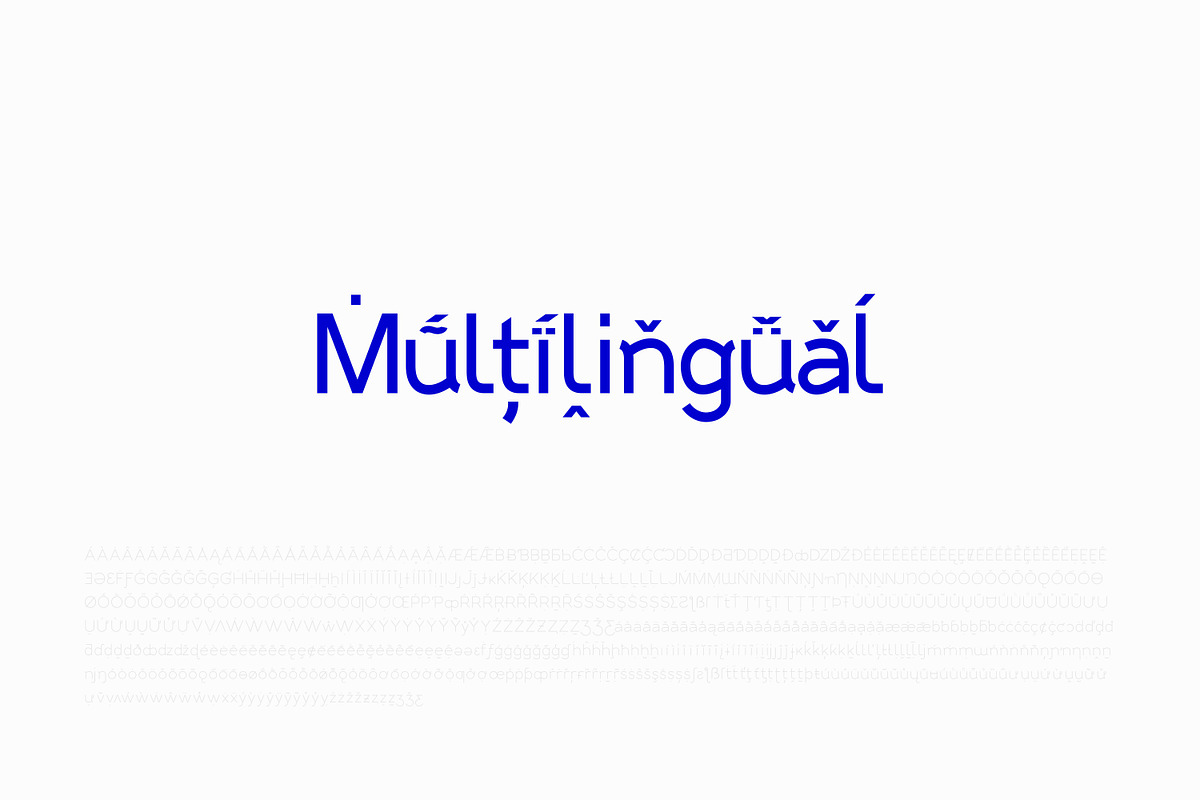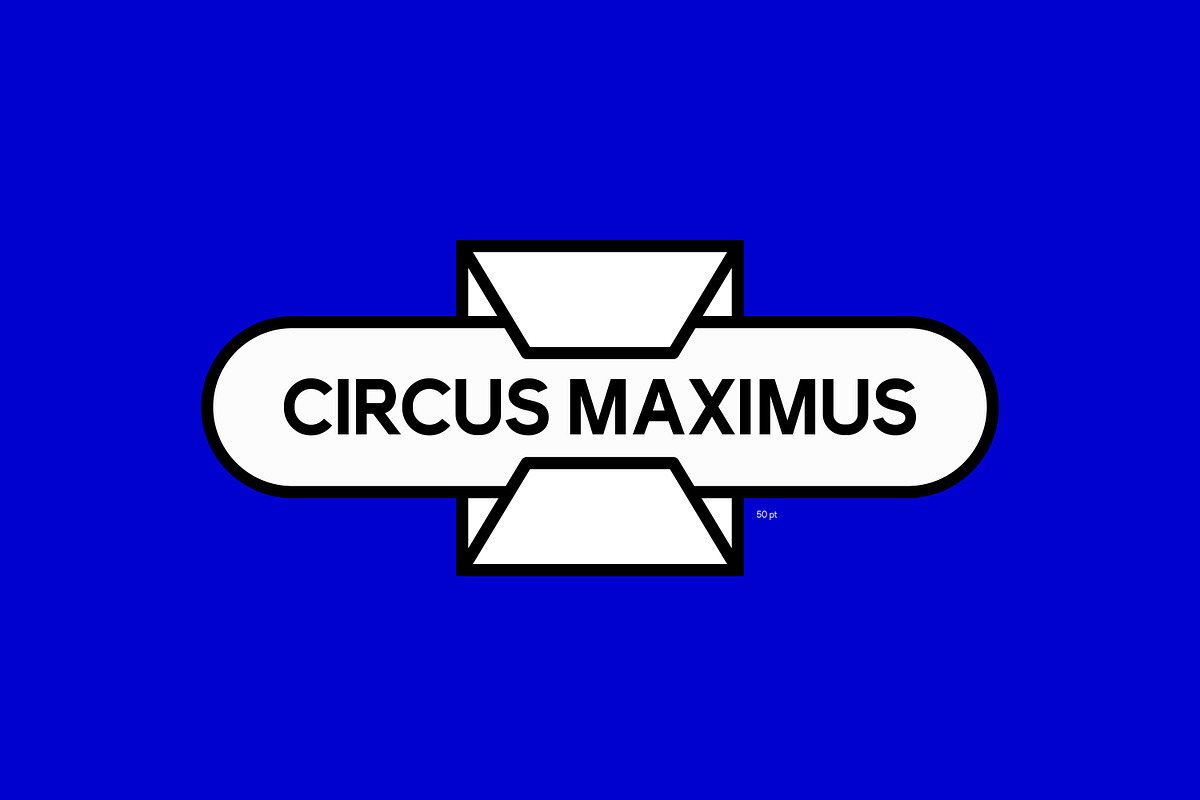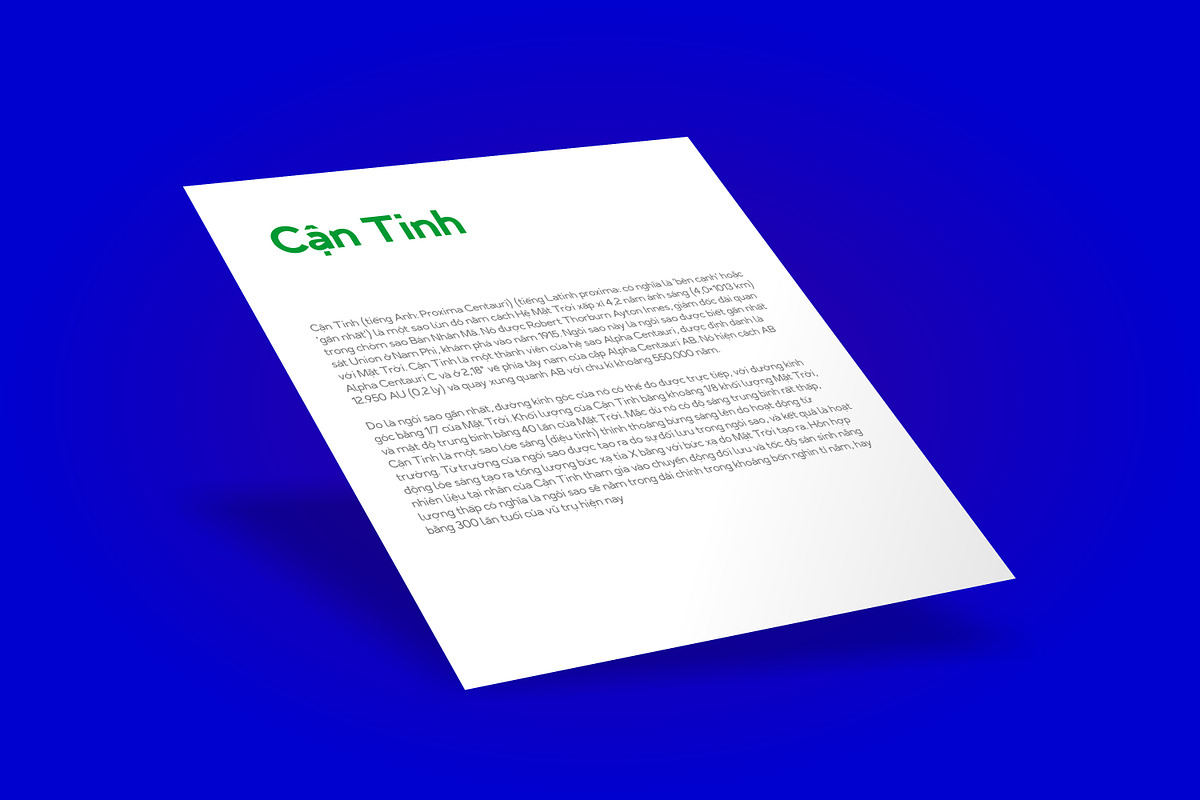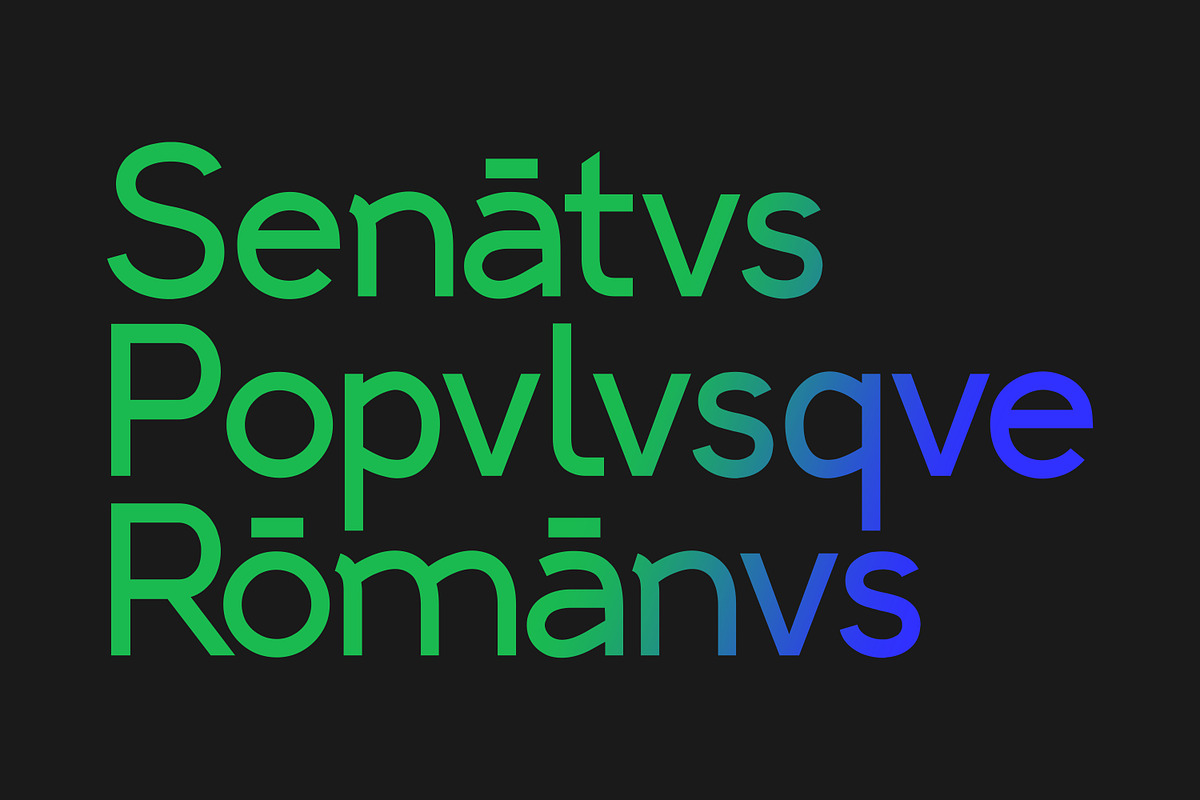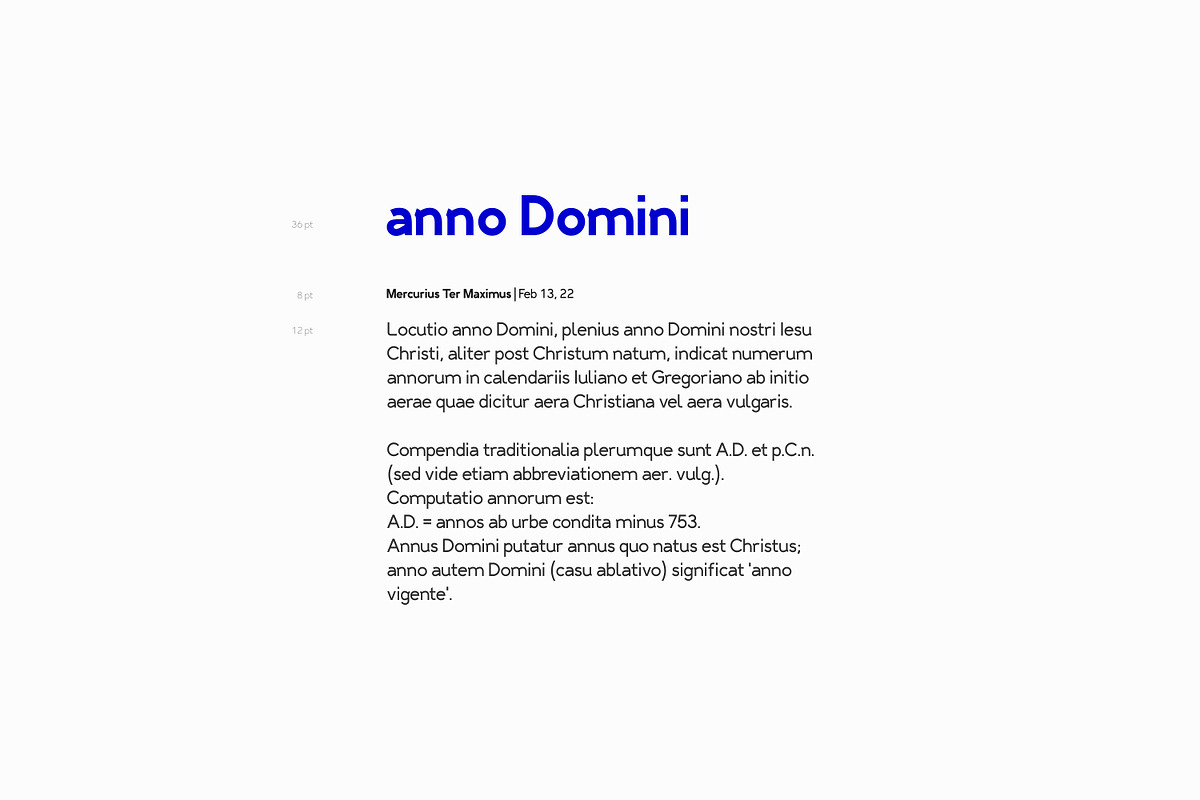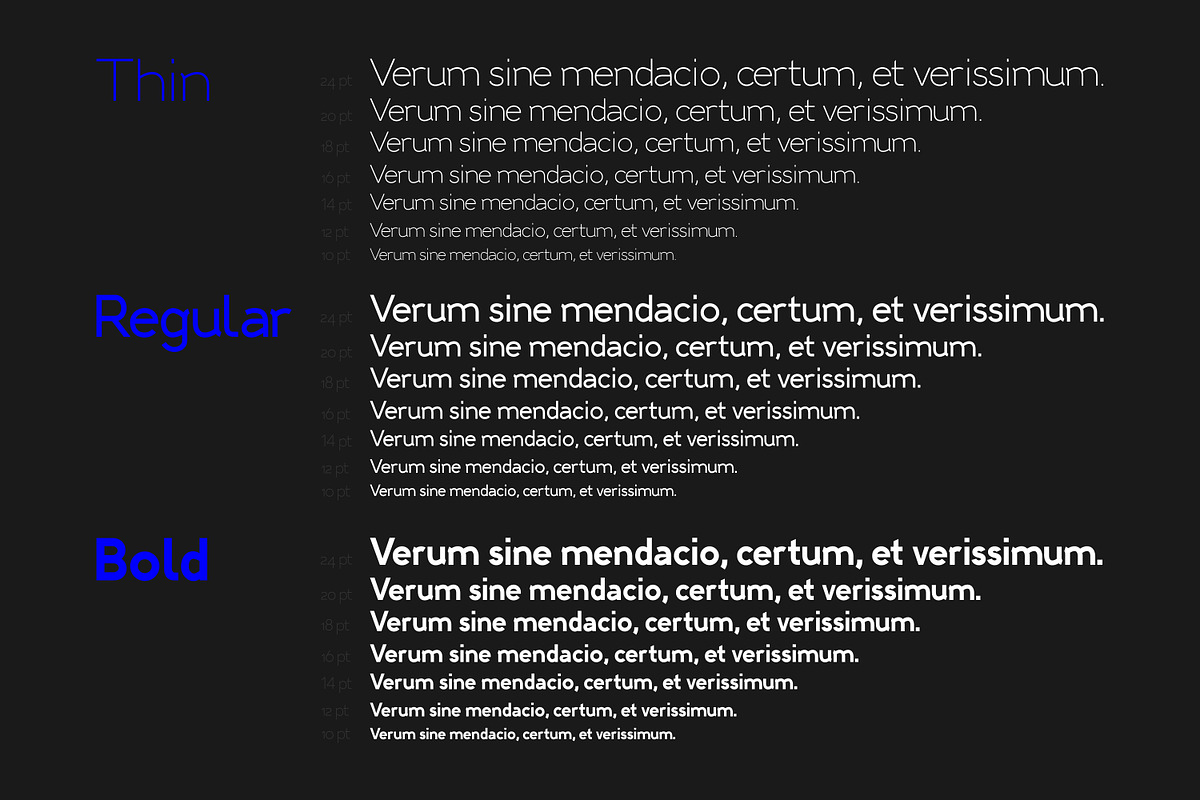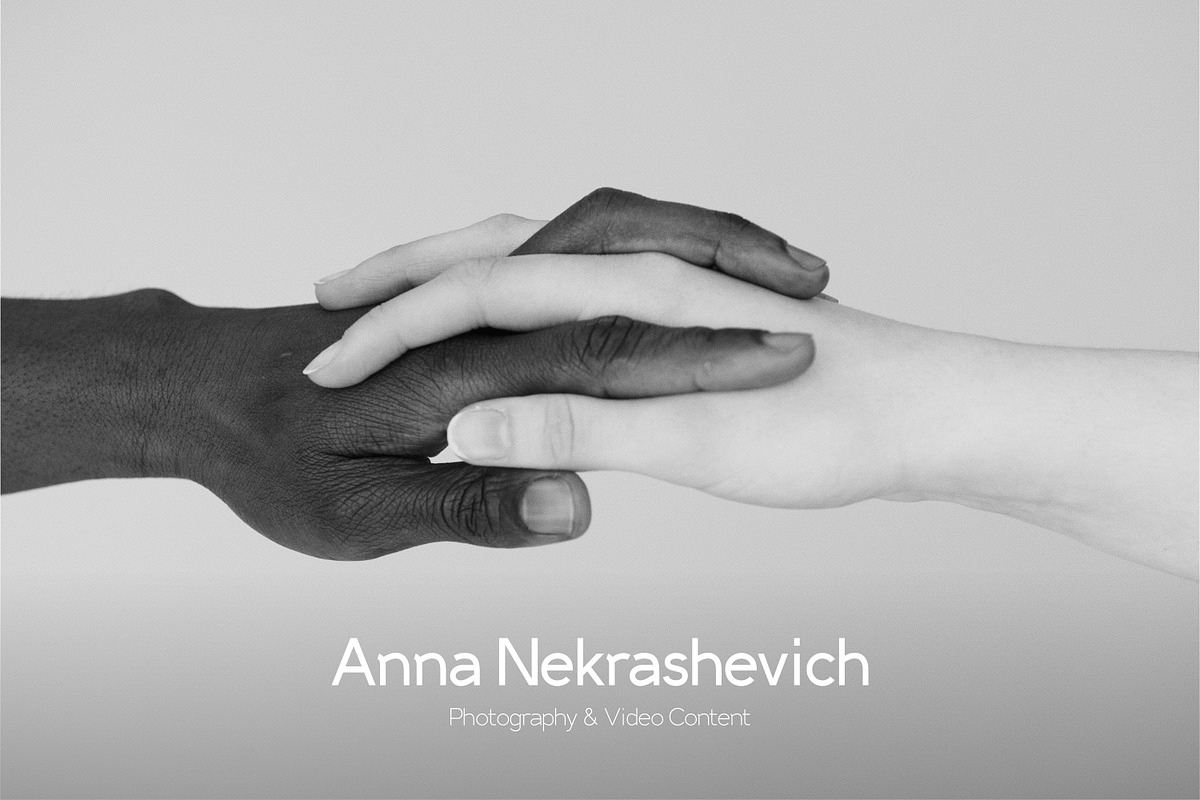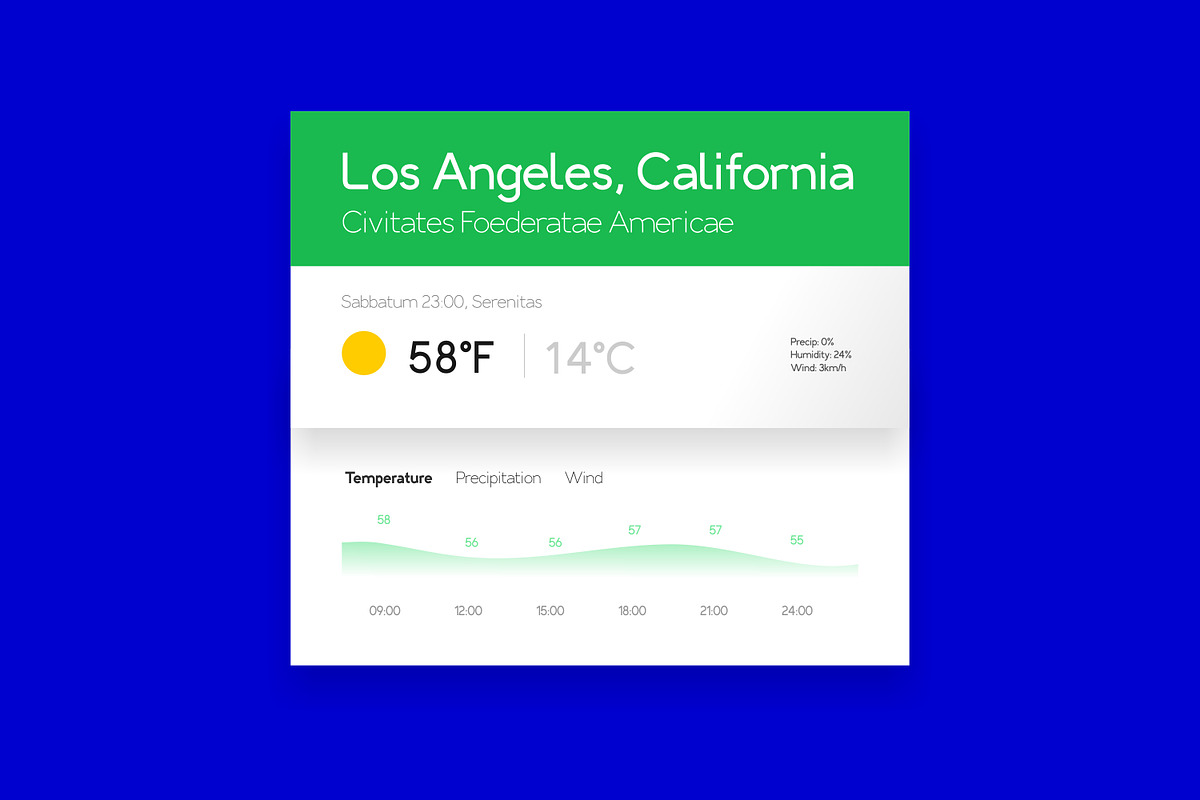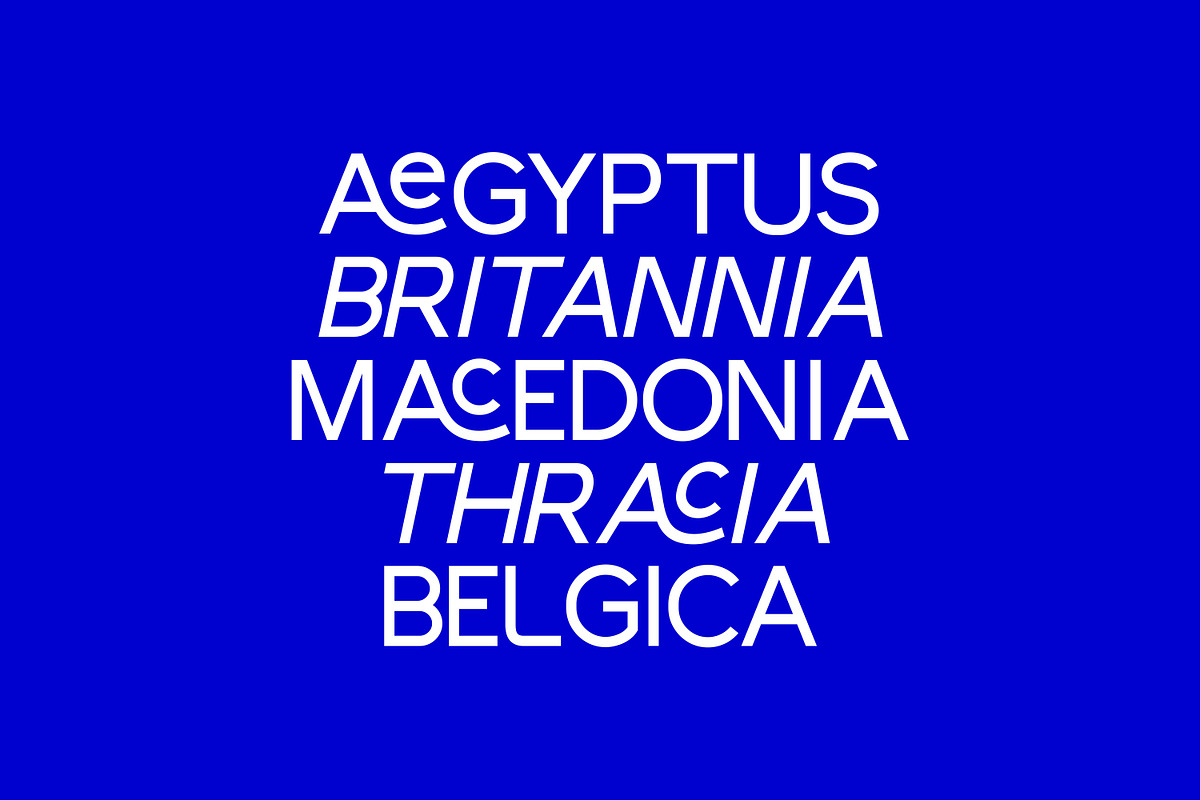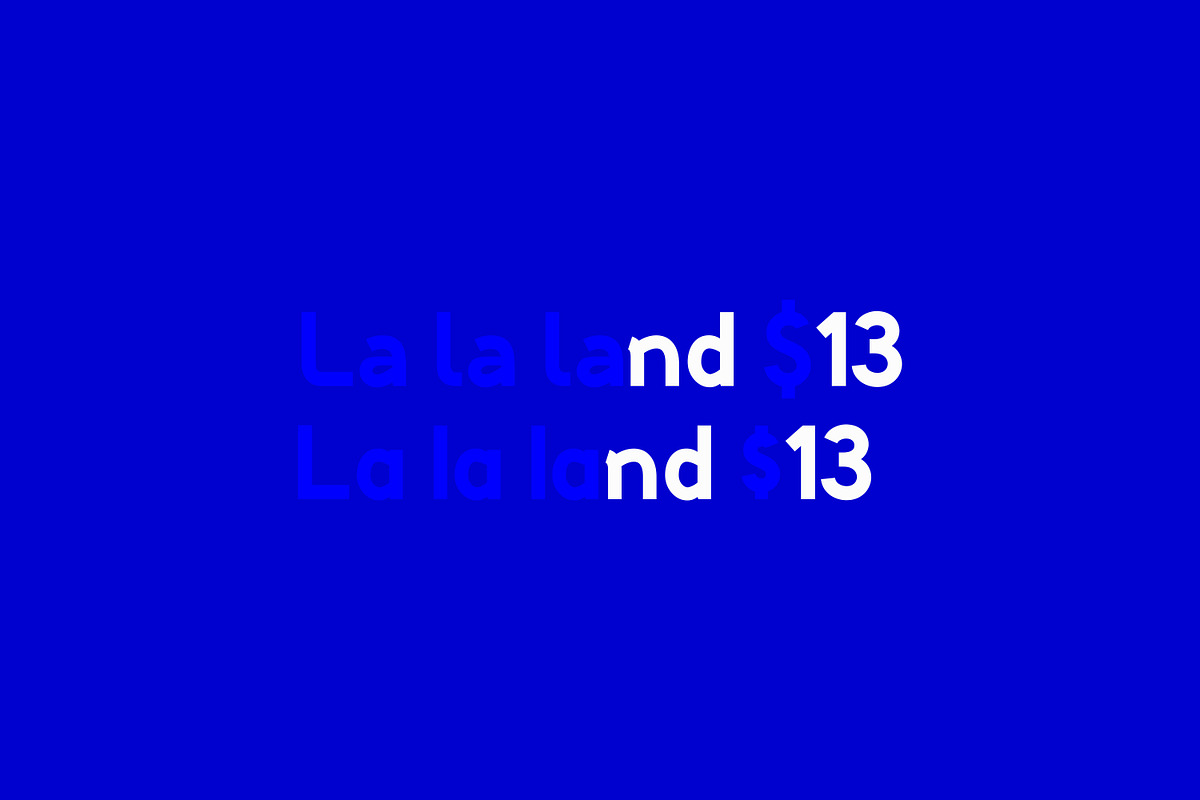
Alternative SH Sans Serif
Introducing Alternative SH Sans serif, reliable and modern sans serif typeface with unique stylistic alternate. Duplexed text metrics for save up more spaces, text remain the same length regardless of weight.
Alternative SH consists of uppercase, lowercase, numbers, symbol, punctuation marks, and other. Total 910 characters/glyphs. Extended characters for multilingual support.